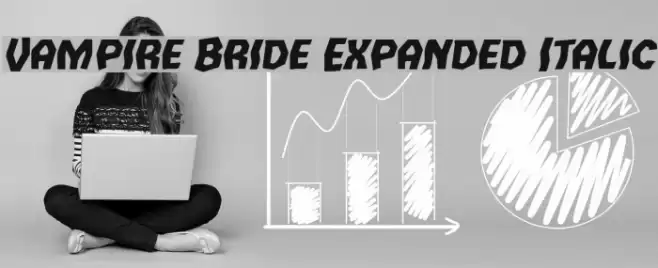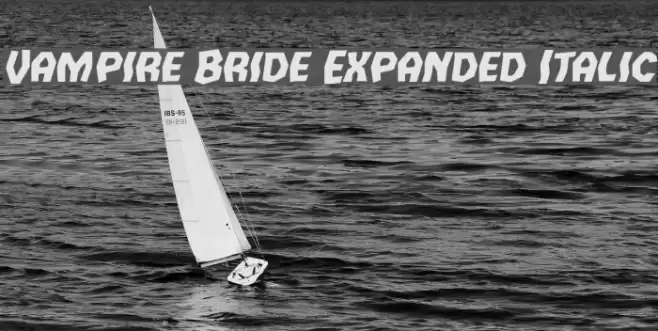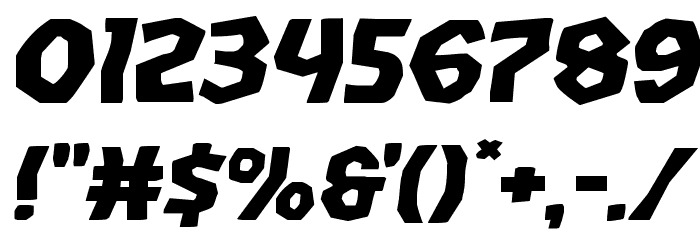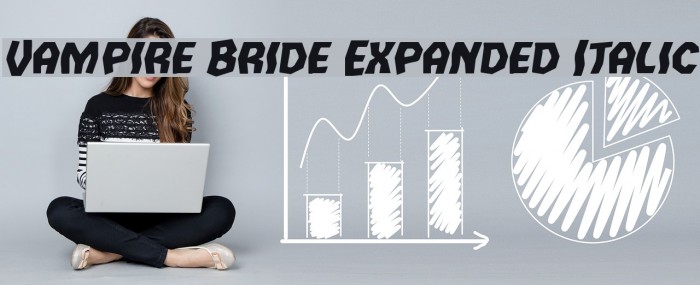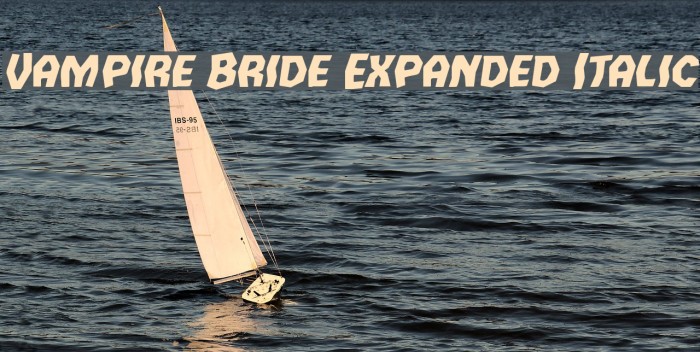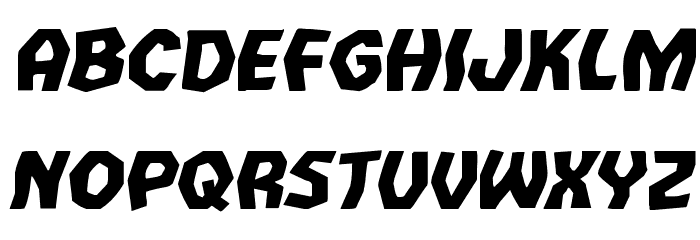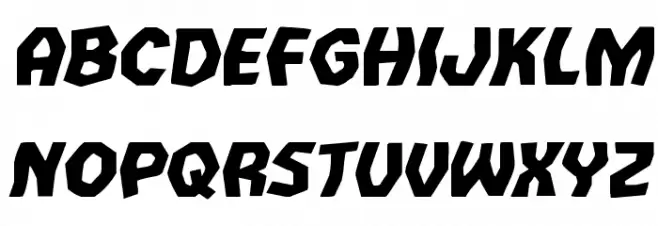
Vampire Bride Expanded Italic Font
Vampire Bride Expanded Italic Description
This font features a bold and dynamic style with a distinctly angular and edgy appearance. The characters are sharply defined, with a slightly expanded width that gives them a powerful presence. The italic slant adds a sense of motion and energy, making it stand out in any design. The uppercase and lowercase letters maintain a consistent style, with numbers and special characters following suit. The overall look is both modern and slightly gothic, suitable for projects that require a dramatic and impactful typeface.
A bold, angular, and italic font with a modern, gothic flair from Horror fonts.
- Proposed Projects: Ideal for horror-themed posters, edgy branding, video game titles, and Halloween event promotions.
- Width: Expanded
- Overall Style: Modern, Gothic